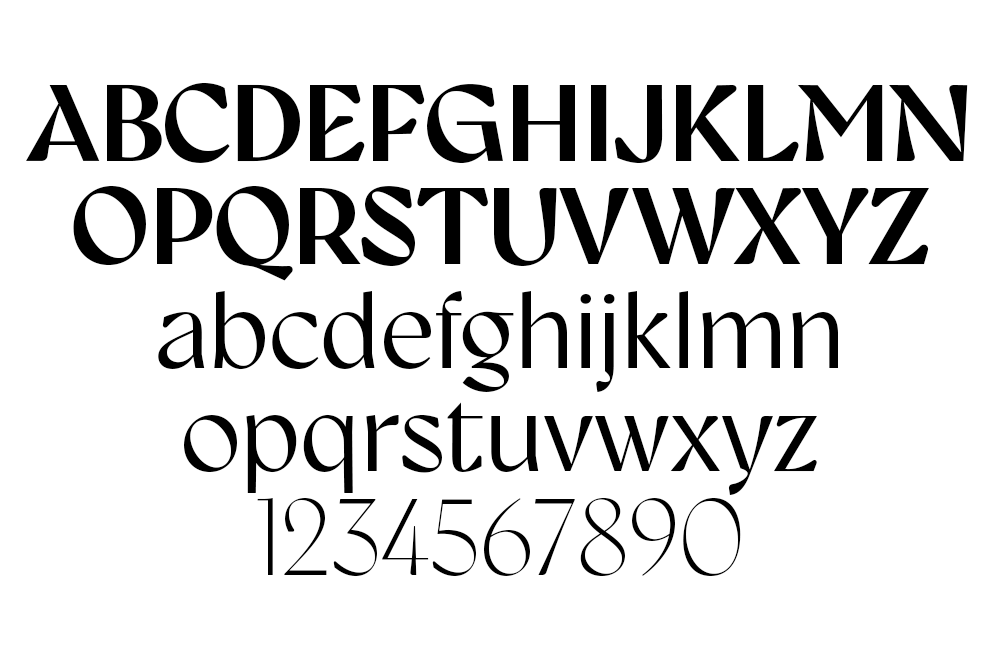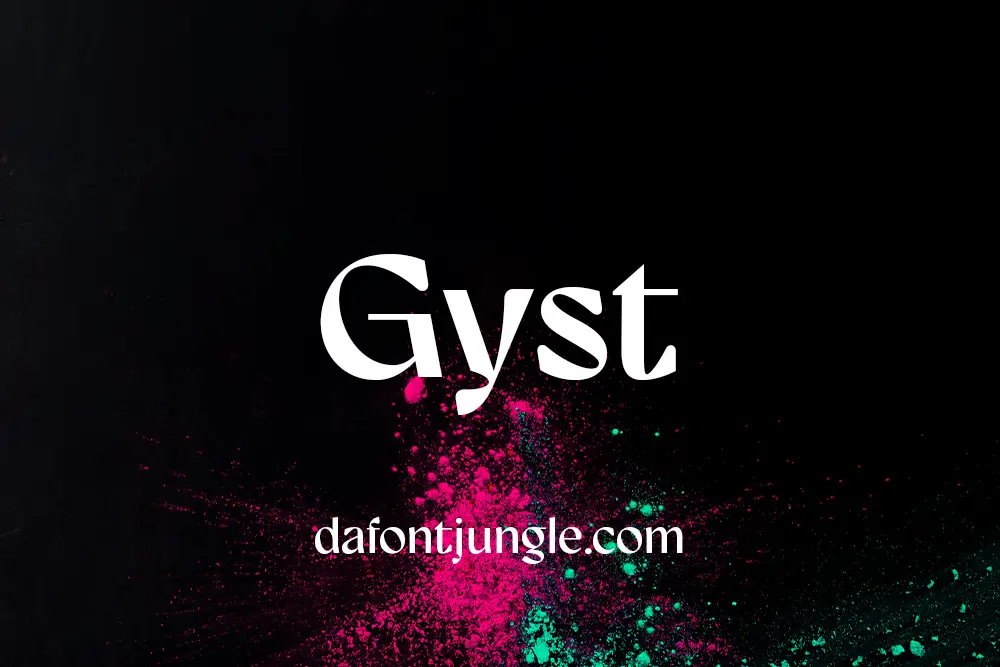
Gyst – Neo-Humanist Sans Meets Elegant Cursive
Gyst is a neo-humanist sans-serif typeface that blends the structure of Grotesque with the elegance of Antiqua. Its upright letters are crisp and modern, while the true italics introduce subtle calligraphic charm. This mix makes Gyst perfect for both serious editorial design and creative display use.
The font balances geometric precision with graceful details—like razor-edged terminals and flowing strokes. Gyst thrives in body text and shines in headlines. Its cursive italics complement the uprights beautifully, offering a dynamic and versatile pairing for any project.